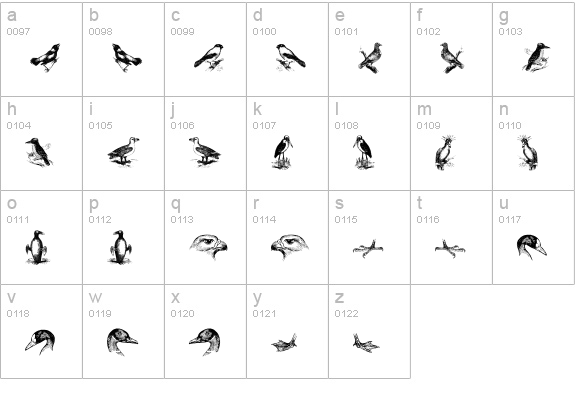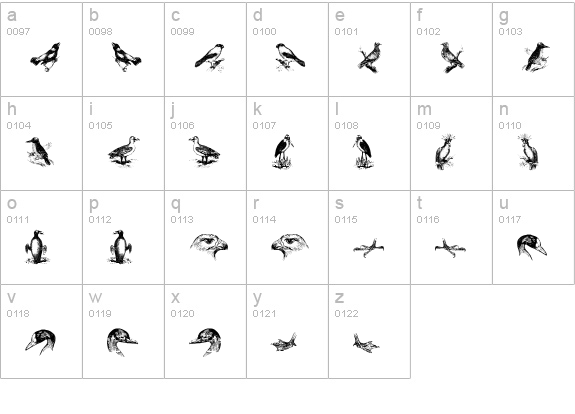
birds a Font Details
Introducing Birds A, a beautifully crafted font that captures the essence of freedom and grace. This elegant typeface is perfect for adding a touch of sophistication to your designs, whether it be for branding, invitations, or any other creative project. Birds A font features delicate lines and graceful curves that mimic the fluid movements of birds in flight. Its airy and light appearance creates a sense of freedom and whimsy, making it a versatile choice for a variety of design applications. Best of all, Birds A font is freely available for download at FontsMarket.com. So spread your wings and let your creativity soar with this stunning typeface.